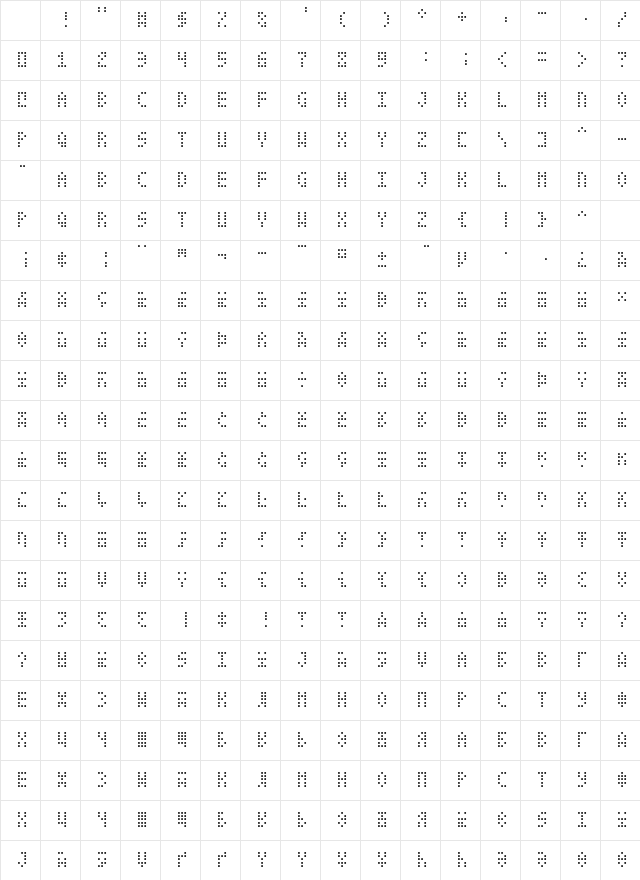
DatDot Light is rooted in pixel-grid construction, making it a natural fit for game UI, retro computing aesthetics, and digital nostalgia projects.
Pro Tip: Use DatDot Light at sizes that align with its pixel grid for the sharpest rendering - scaling to non-integer multiples can introduce unwanted blur.